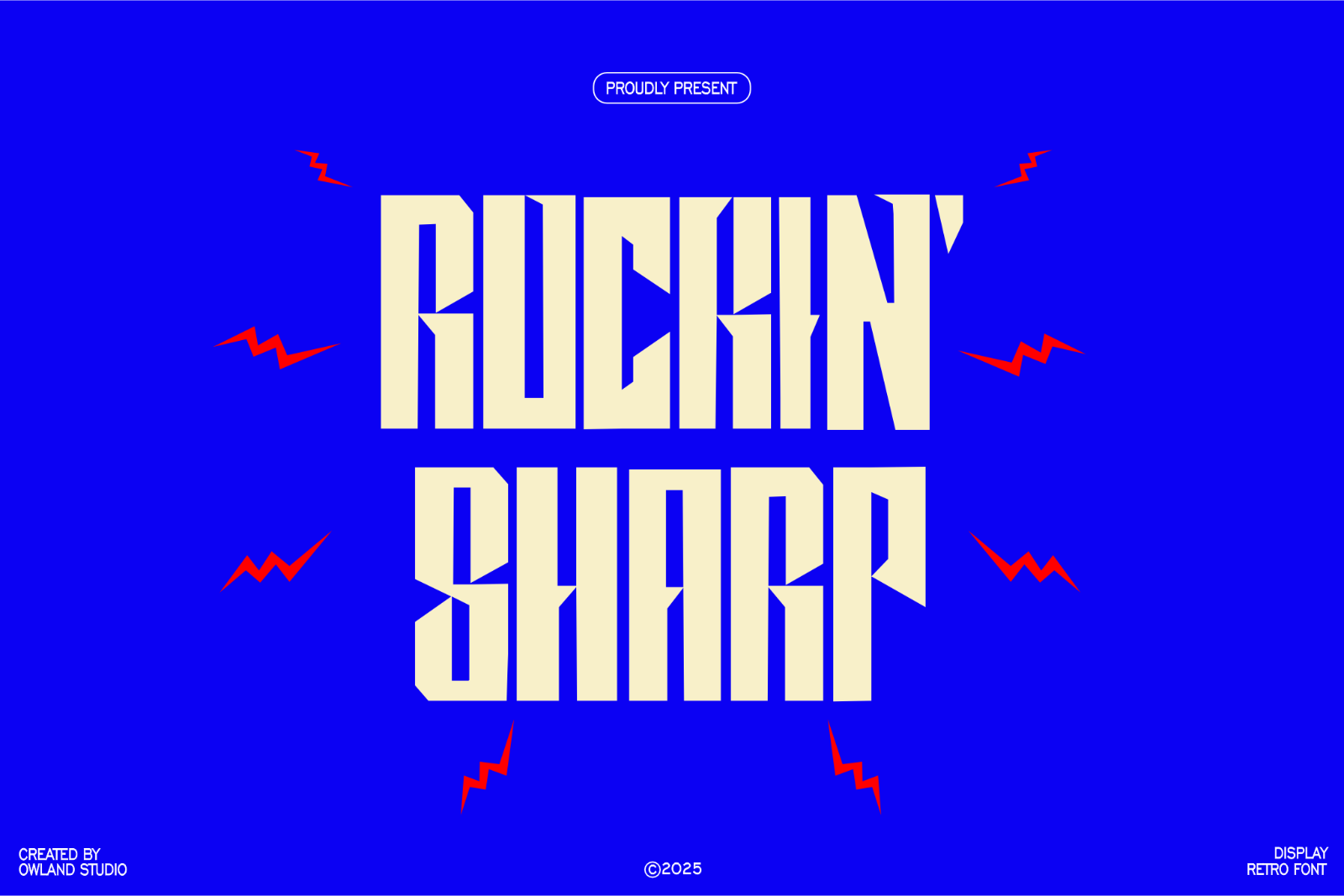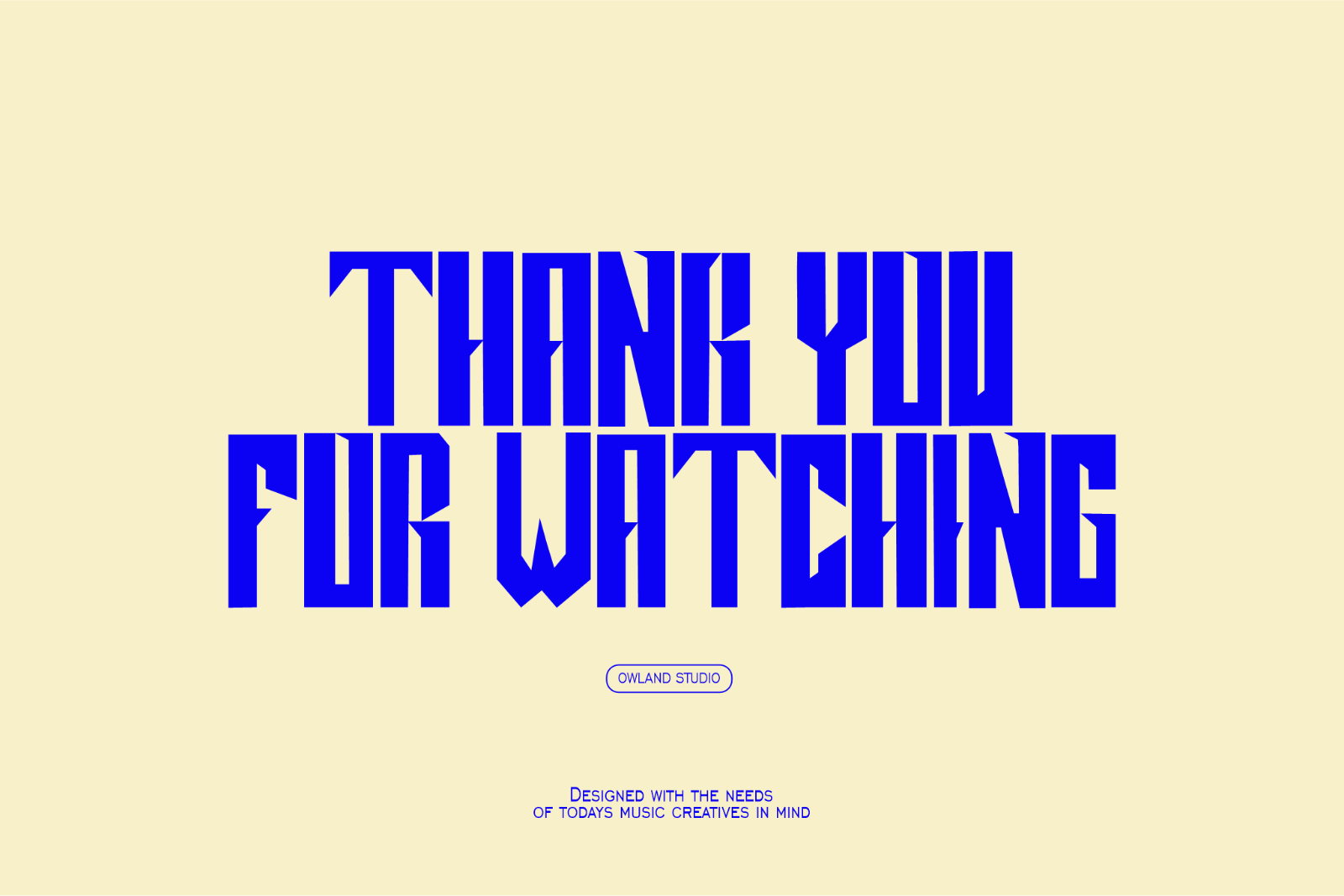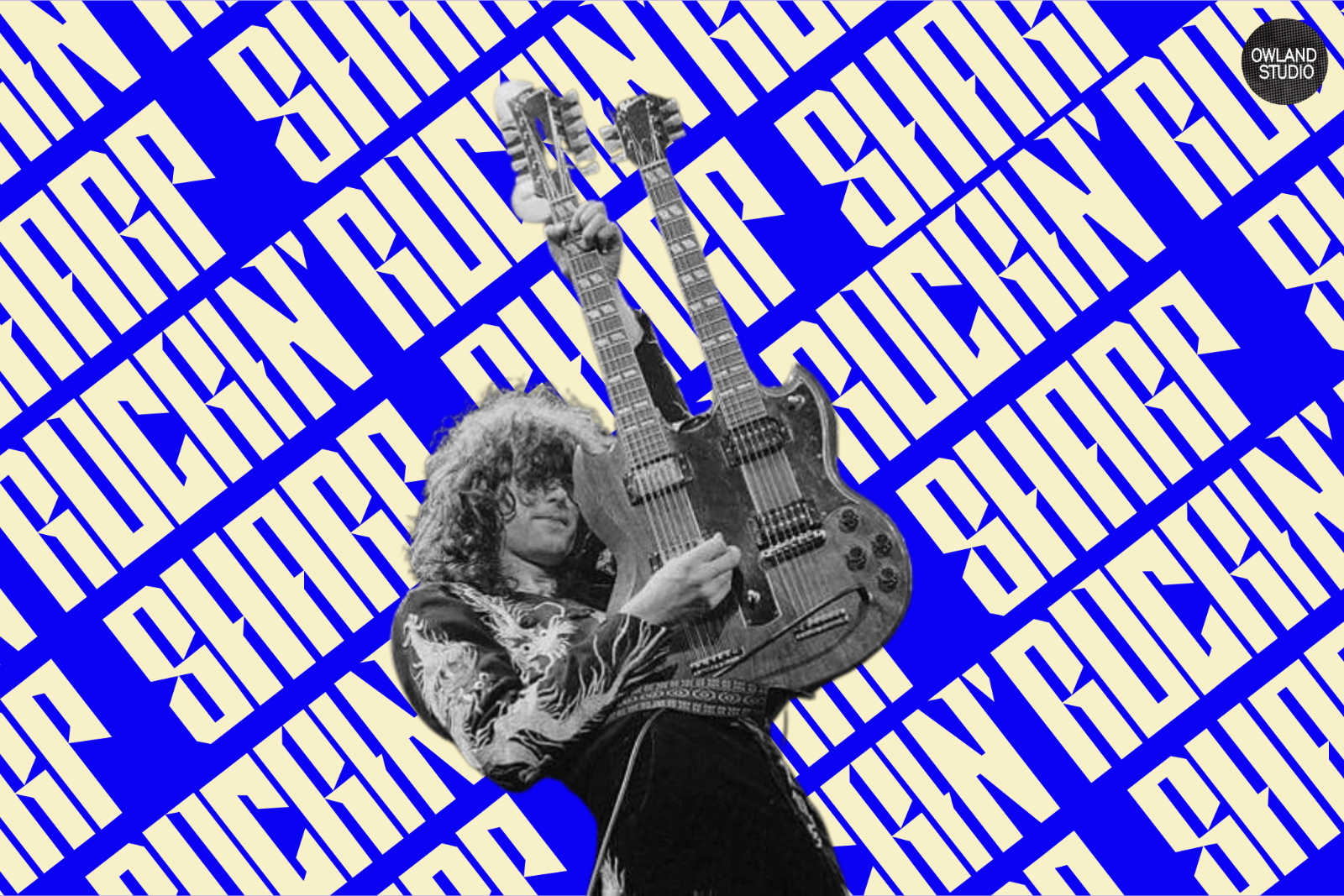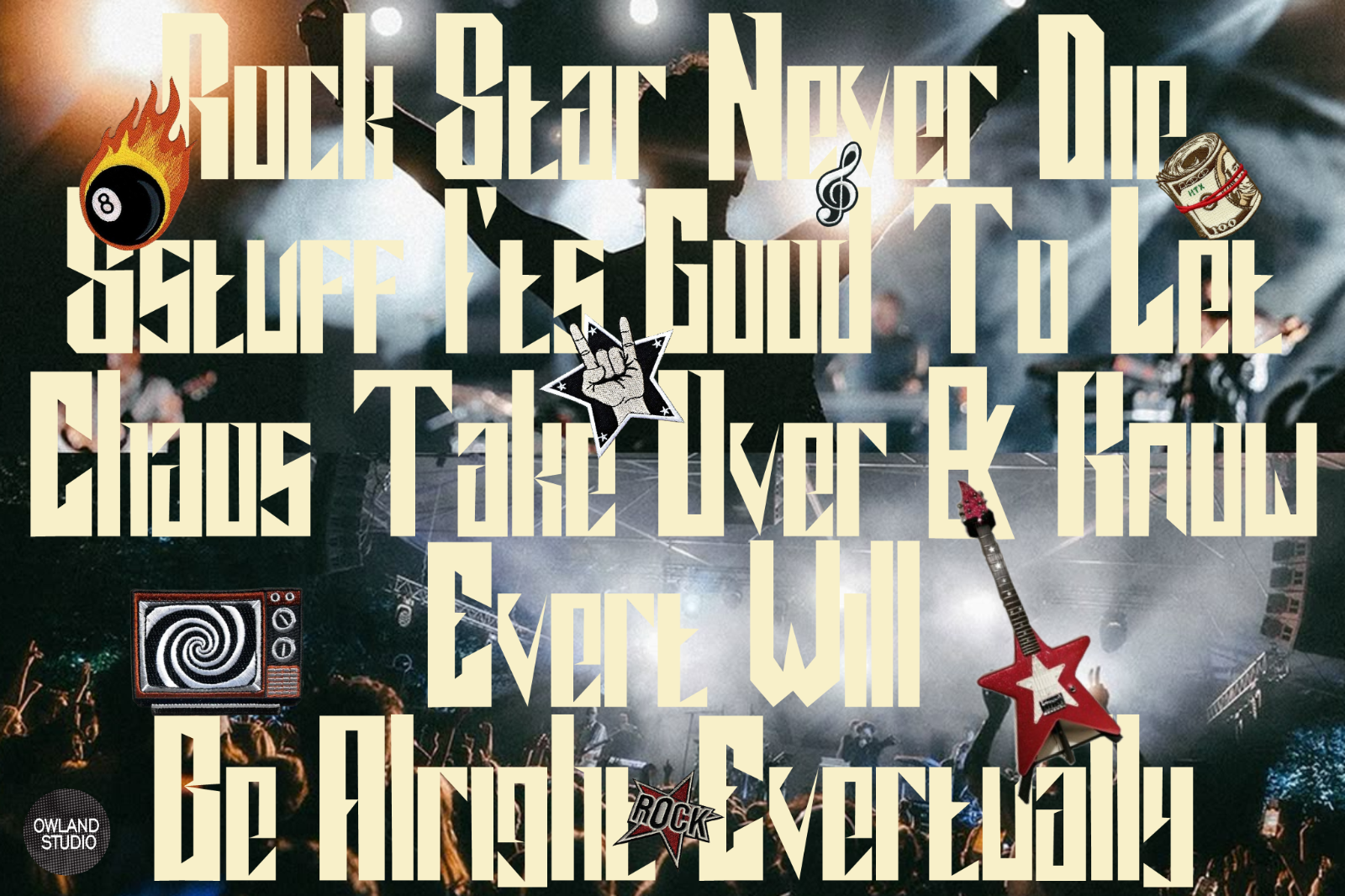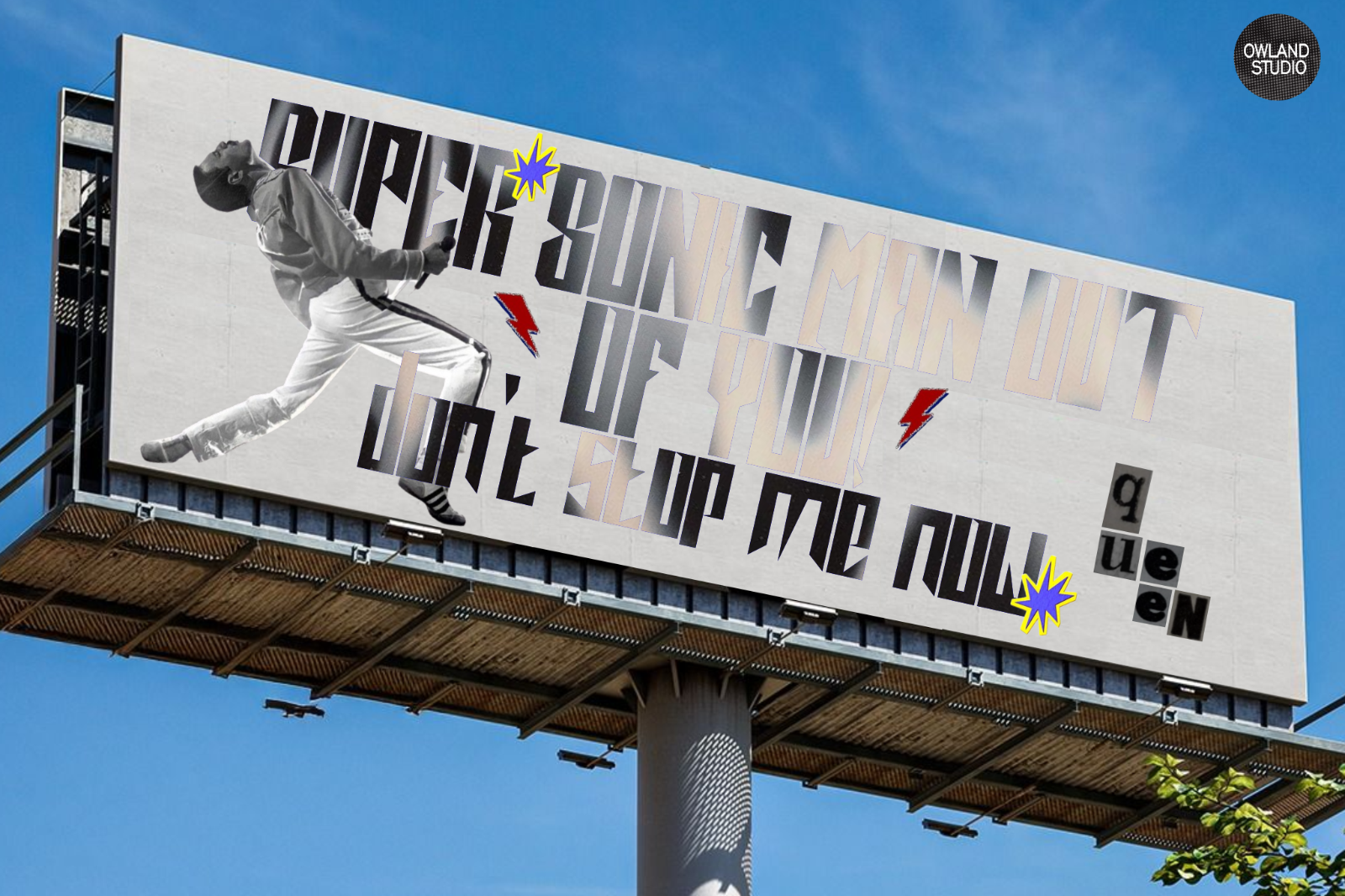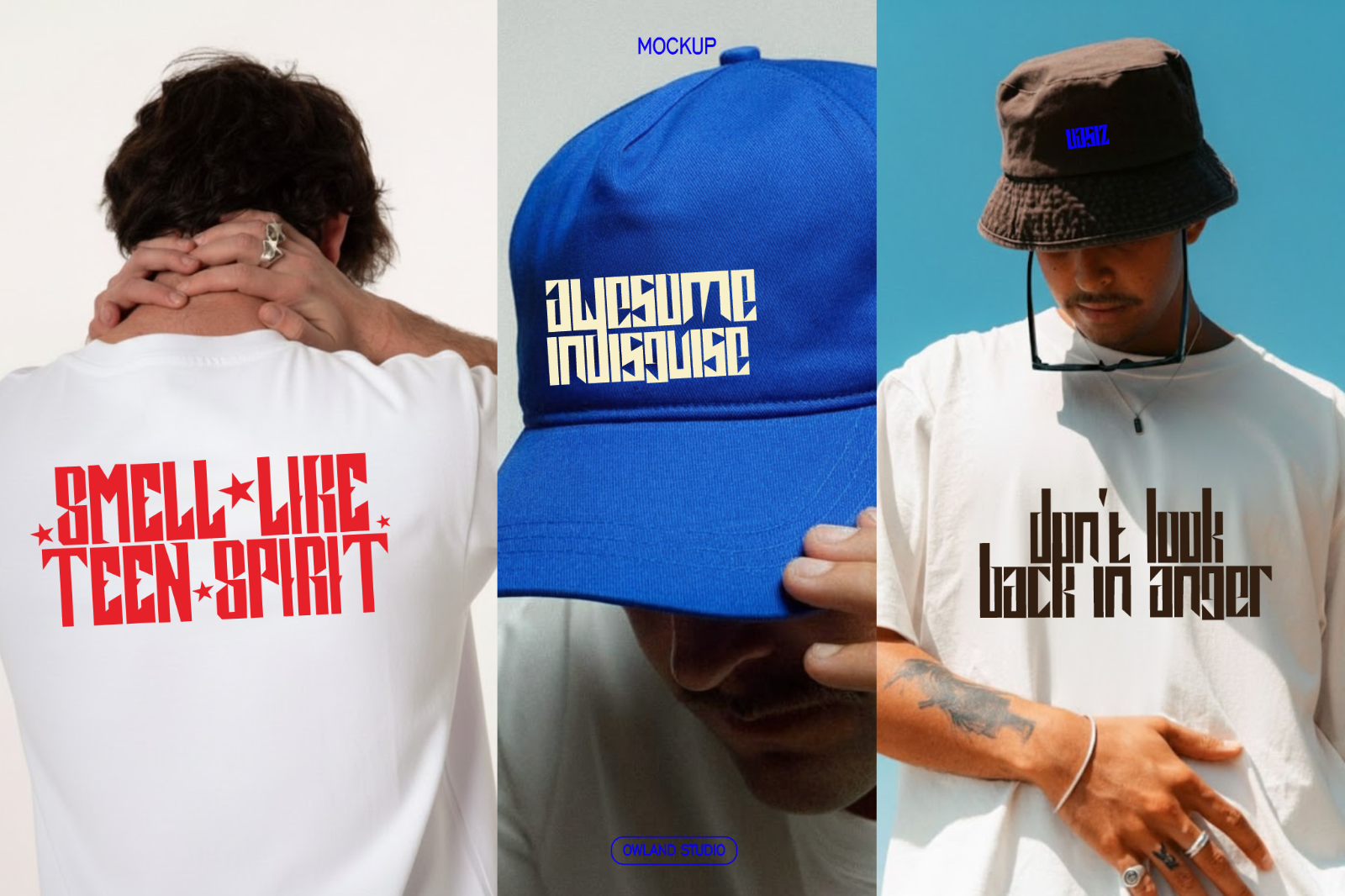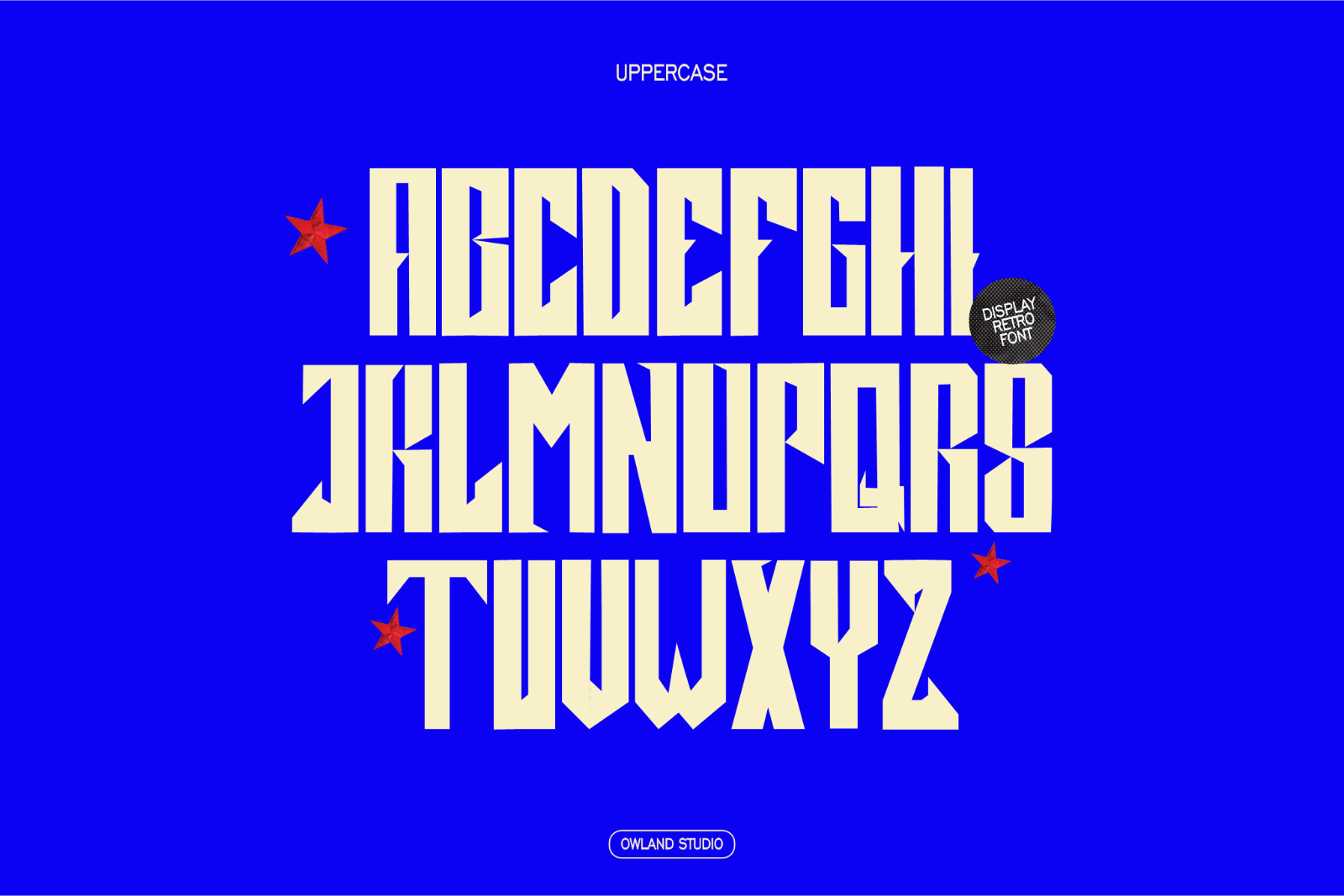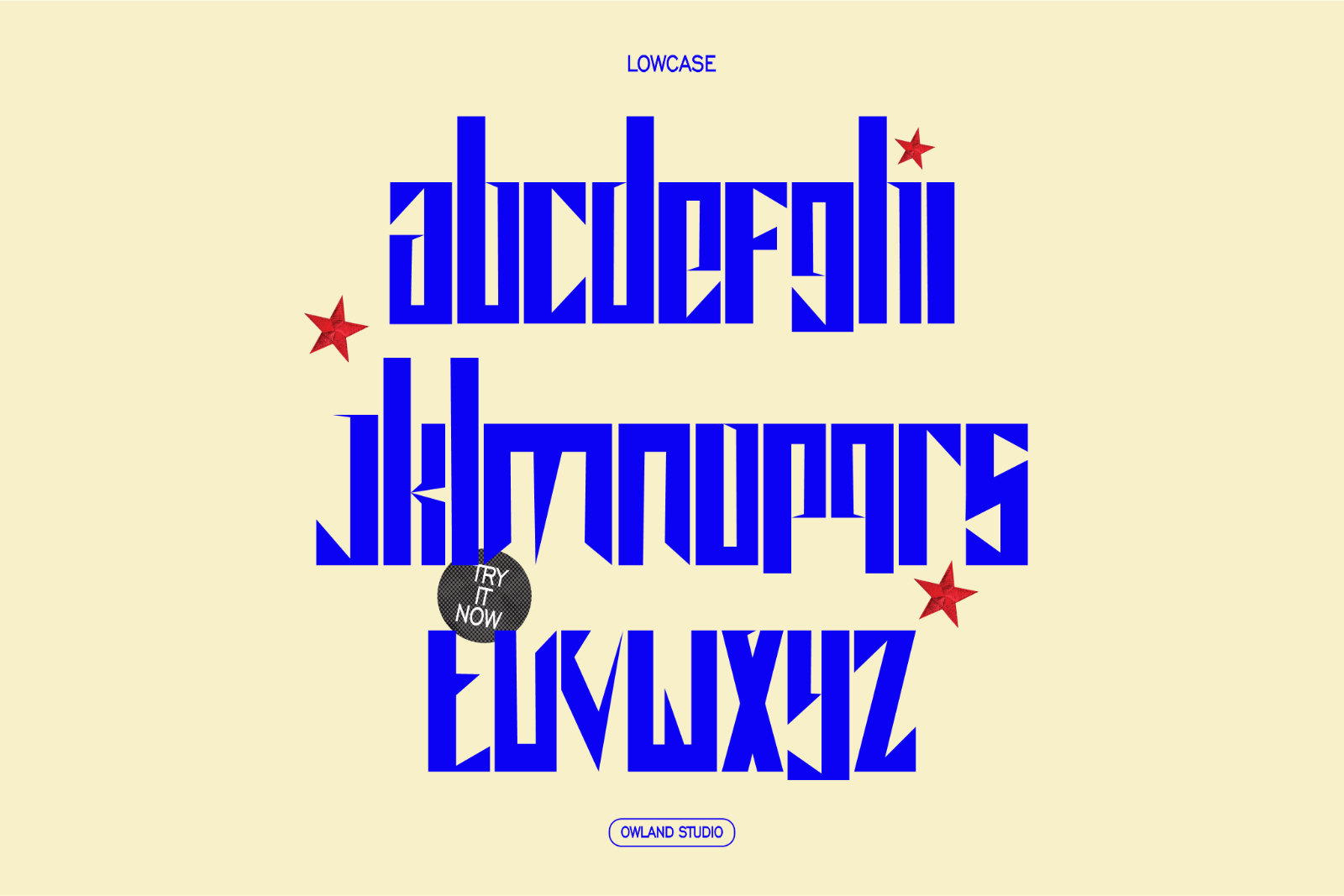
Rockin` Sharp is more than just a font—it's a statement piece for designers who demand presence, flexibility, and a bold edge in their typography.
With its tall, striking letterforms and bold personality, Rockin` Sharp captures attention in everything from brand identities and editorial layouts to advertising campaigns, mockups, and other graphics.
Designed with the needs of today's music creatives in mind, Rockin` Sharp is the perfect typographic solution for those working across the formats and languages ​​of rock, metal, punk, and a wide variety of genres.